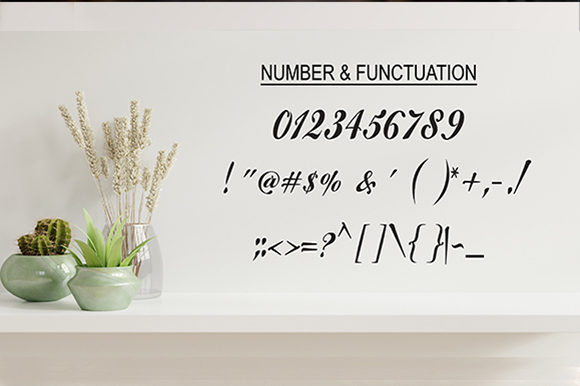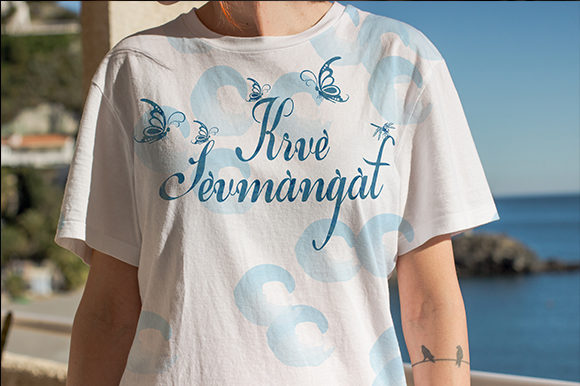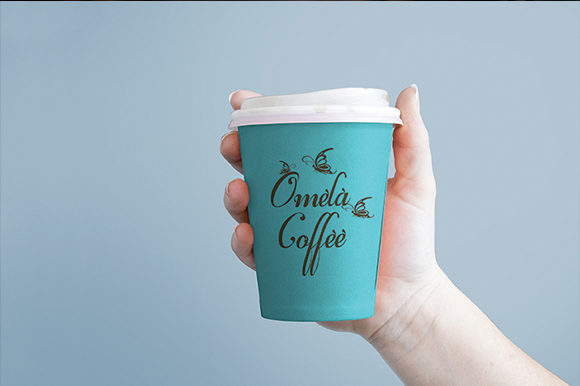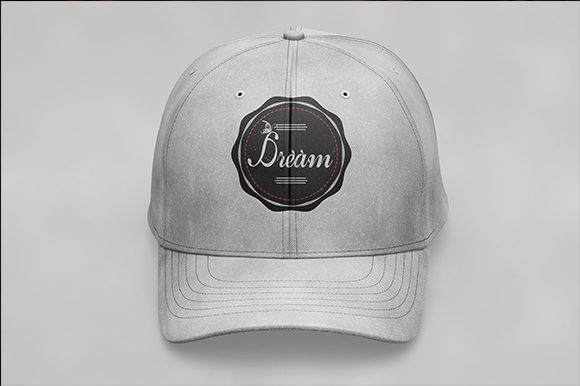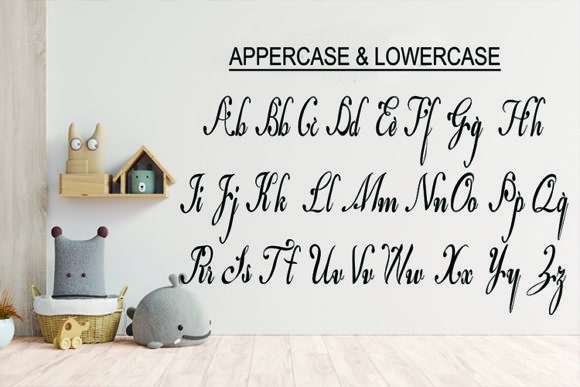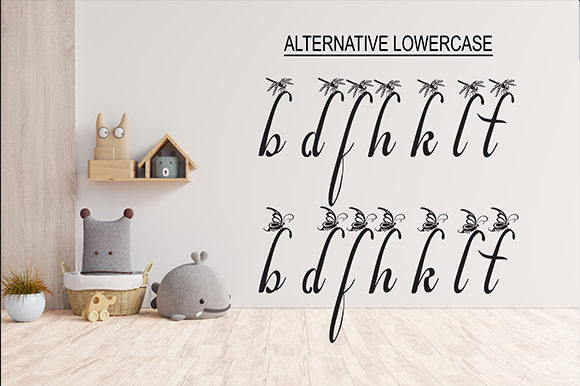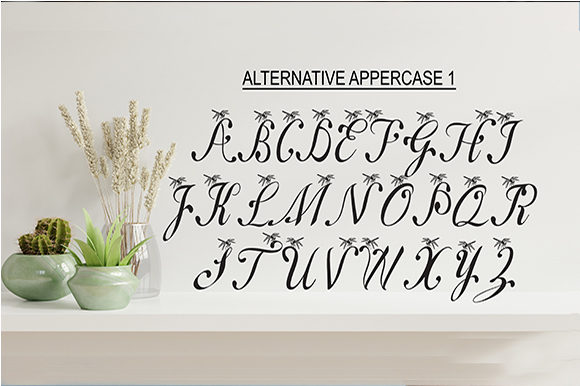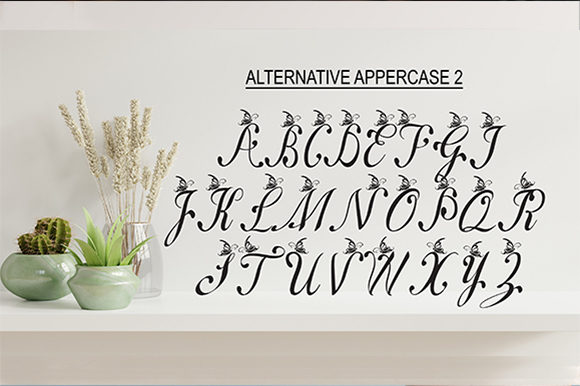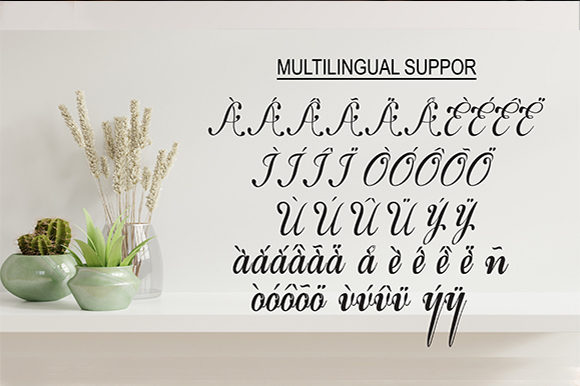
Castalia Font
About Castalia Font
“Castalia” is a delicate, elegant, and flowing handwritten font that exudes timeless charm and sophistication. Its well-balanced characters make it an excellent choice for a wide range of design projects. Here are some creative ideas on how to utilize “Castalia” and witness your designs come alive:
1. Wedding Invitations: Use “Castalia” to create exquisite and romantic wedding invitations, setting the tone for a memorable celebration.
2. Greeting Cards: Design heartfelt and elegant greeting cards for various occasions, such as birthdays, anniversaries, or special events.
3. Quotes and Typography Art: Showcase inspiring quotes or create stunning typography art using the graceful strokes of “Castalia.”
4. Branding and Logos: Establish a distinct brand identity with “Castalia” for logos, business cards, and other branding materials.
5. Social Media Graphics: Enhance your social media presence with “Castalia” in graphics, making your posts stand out with sophistication.
6. Book Covers: Capture readers’ attention with captivating book covers that feature the refined beauty of “Castalia.”
7. Stationery Design: Create cohesive and elegant stationery sets with “Castalia,” perfect for personal and professional use.
8. Art Prints: Transform your artwork into art prints or posters with the delicate charm of “Castalia,” adding an air of sophistication to any space.
9. Wedding Stationery: Complement the overall theme of weddings with coordinated stationery items like place cards, menus, and table numbers using “Castalia.”
10. Product Packaging: Apply “Castalia” to product packaging to add an elegant and premium feel, elevating your products’ visual appeal.
11. Blog Graphics: Enhance your blog’s visual appeal with “Castalia” in graphics, creating a cohesive and polished brand image.
12. Website Headers: Elevate the aesthetic of your website with the flowing and elegant headers created using “Castalia.”
13. Magazine Titles: Use “Castalia” for magazine titles and headings, instantly adding sophistication and refinement to the layout.
14. Handmade Crafts: Incorporate “Castalia” into various handmade crafts, adding a touch of sophistication and elegance to each creation.
15. Apparel Design: Apply “Castalia” to apparel design for clothing items like t-shirts, dresses, or accessories, bringing a touch of classic elegance to your products.
The delicate and flowing nature of “Castalia” makes it a versatile font that can elevate various design projects. Whether it’s for personal or professional use, this font adds a touch of elegance and refinement that can truly bring your creative ideas to life!